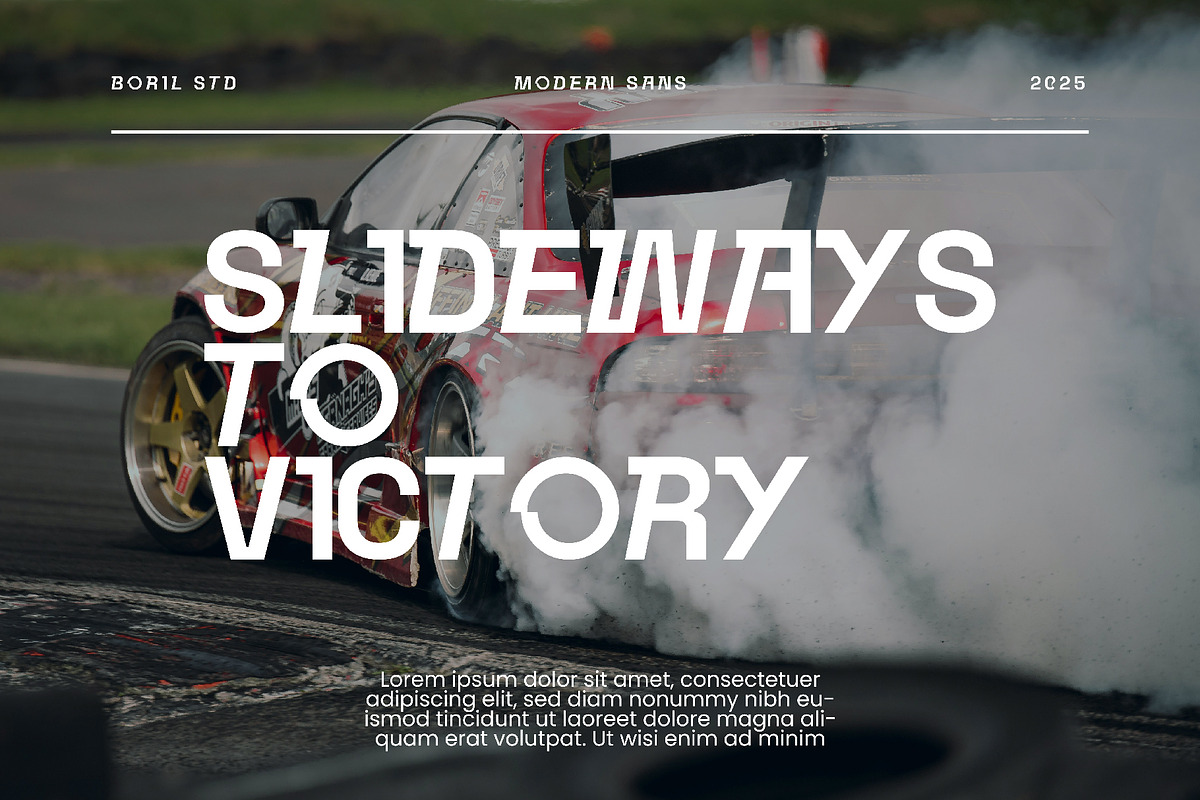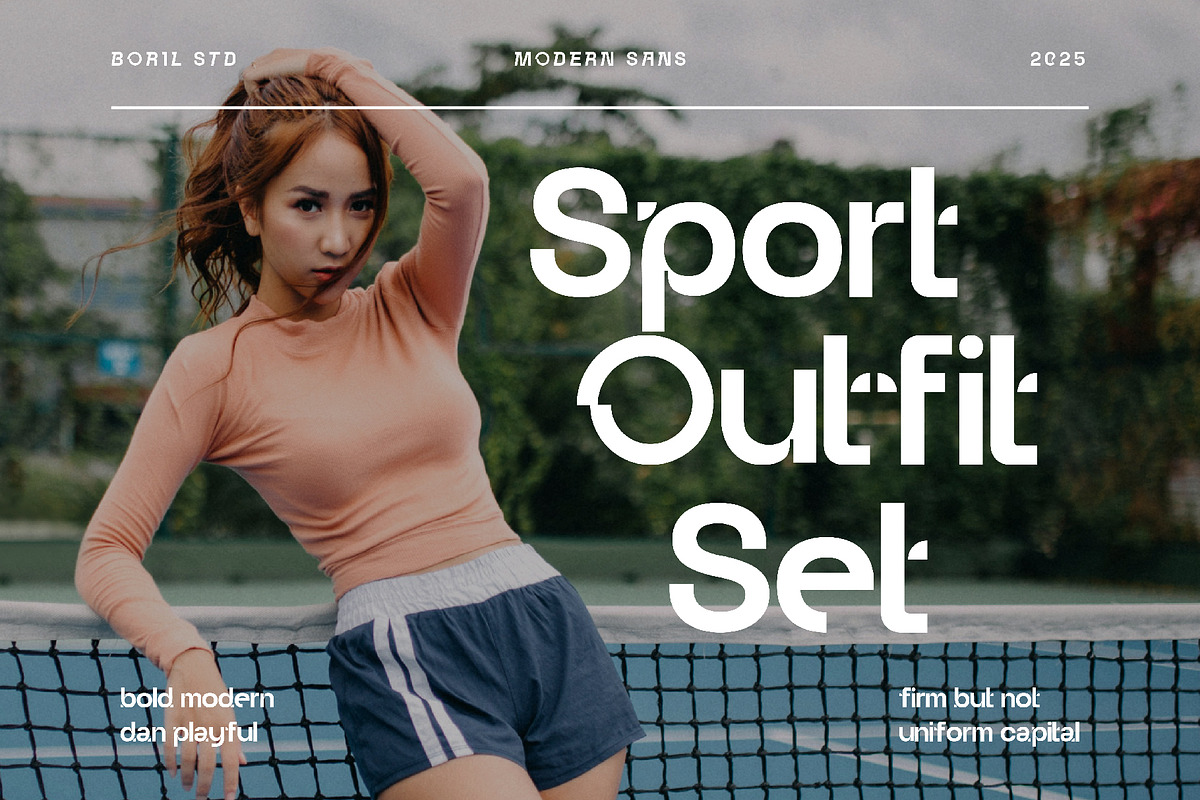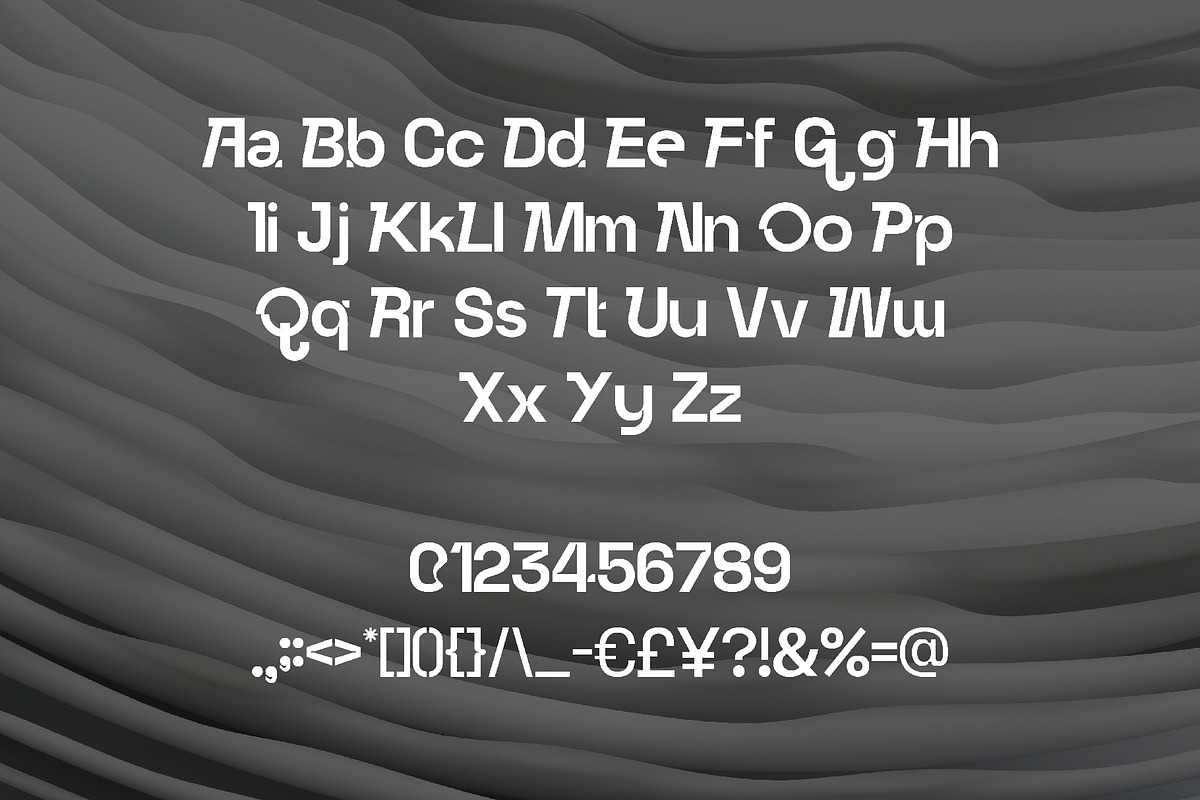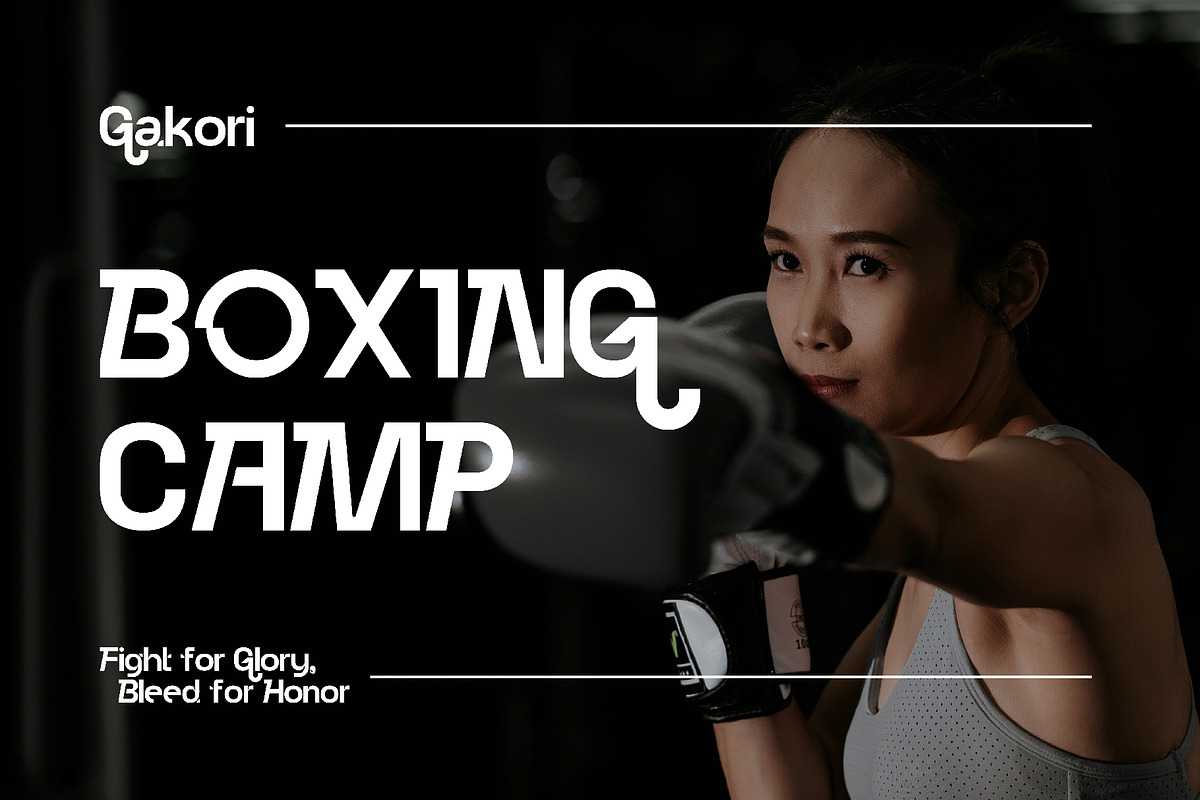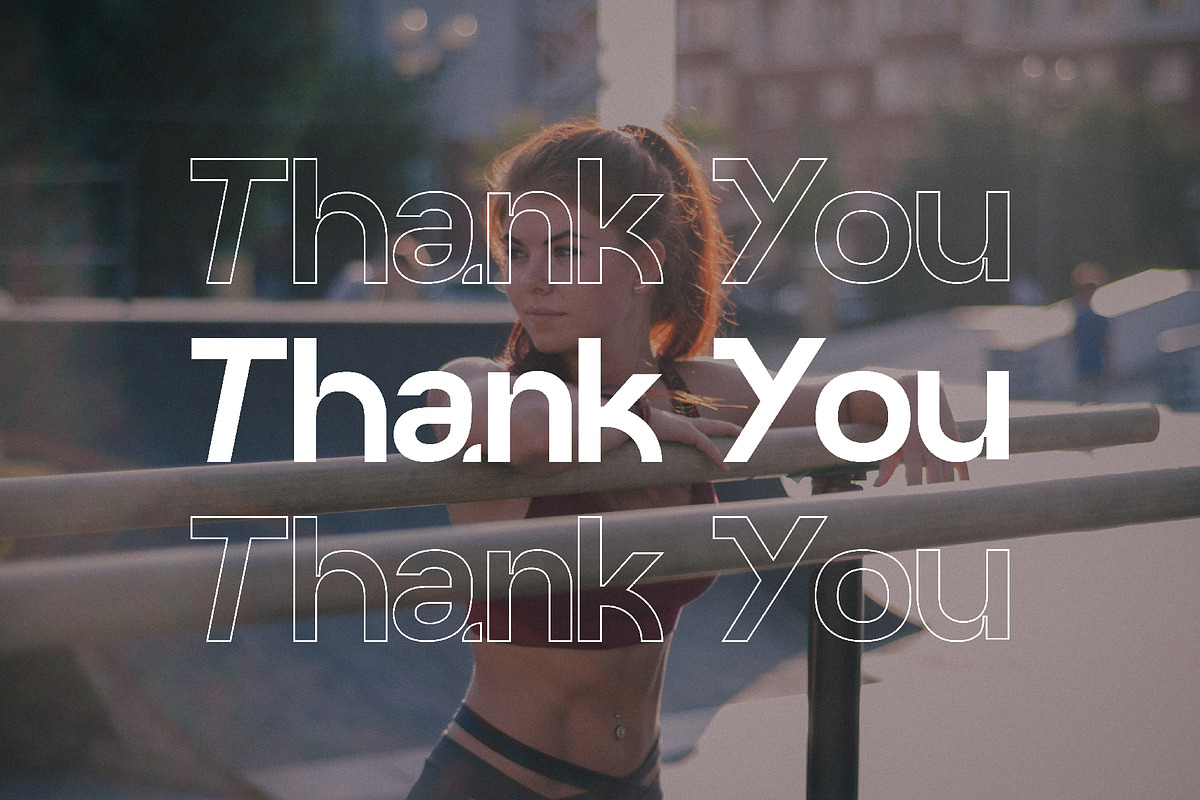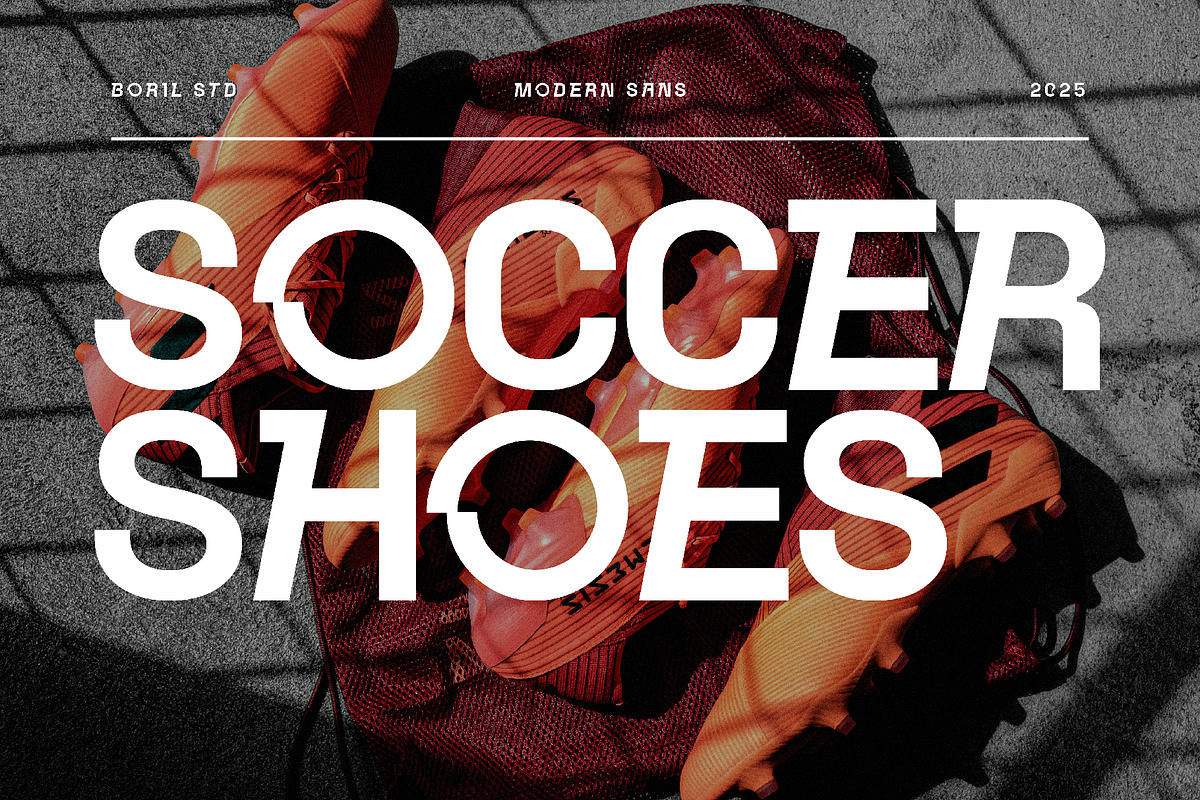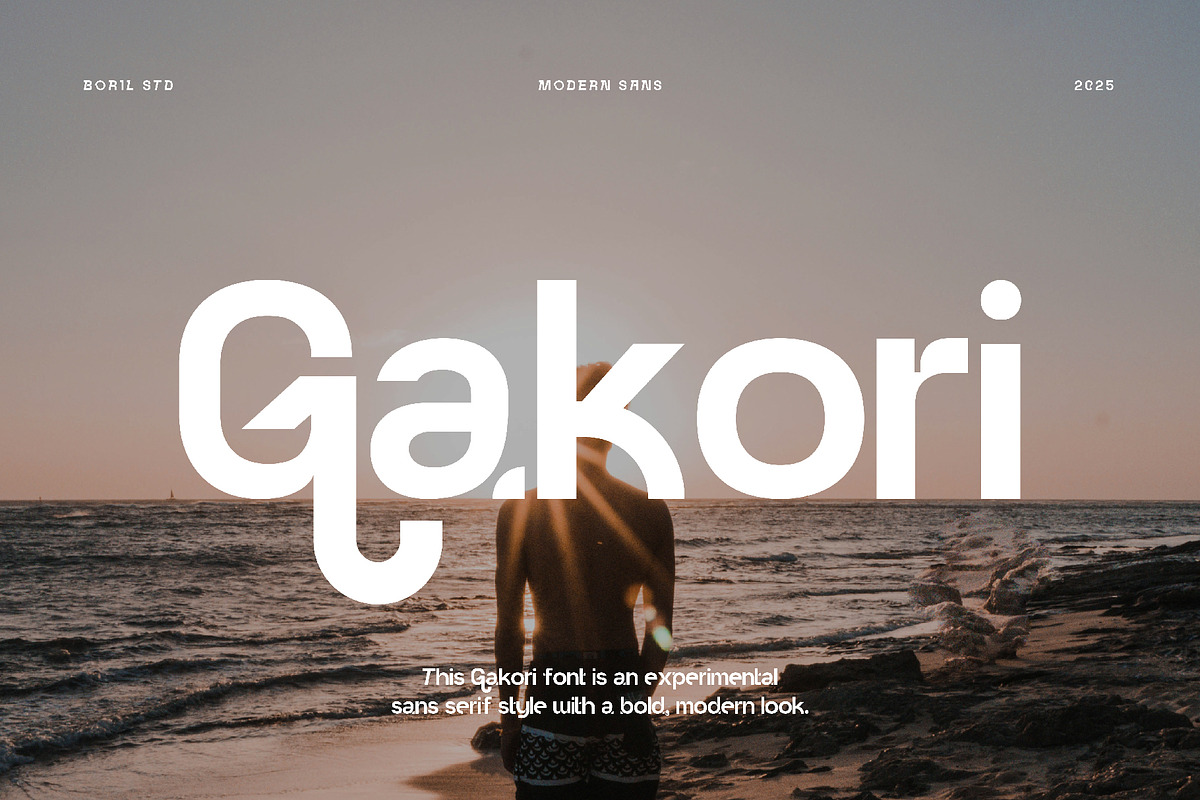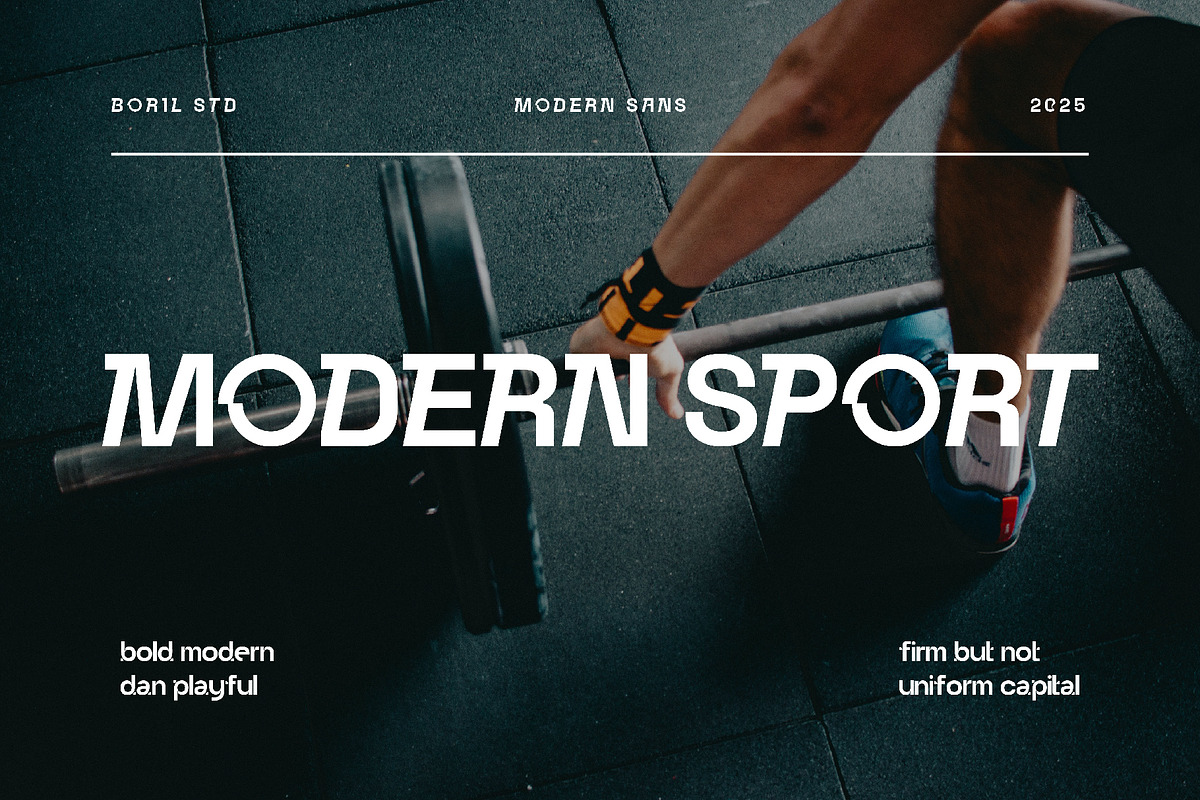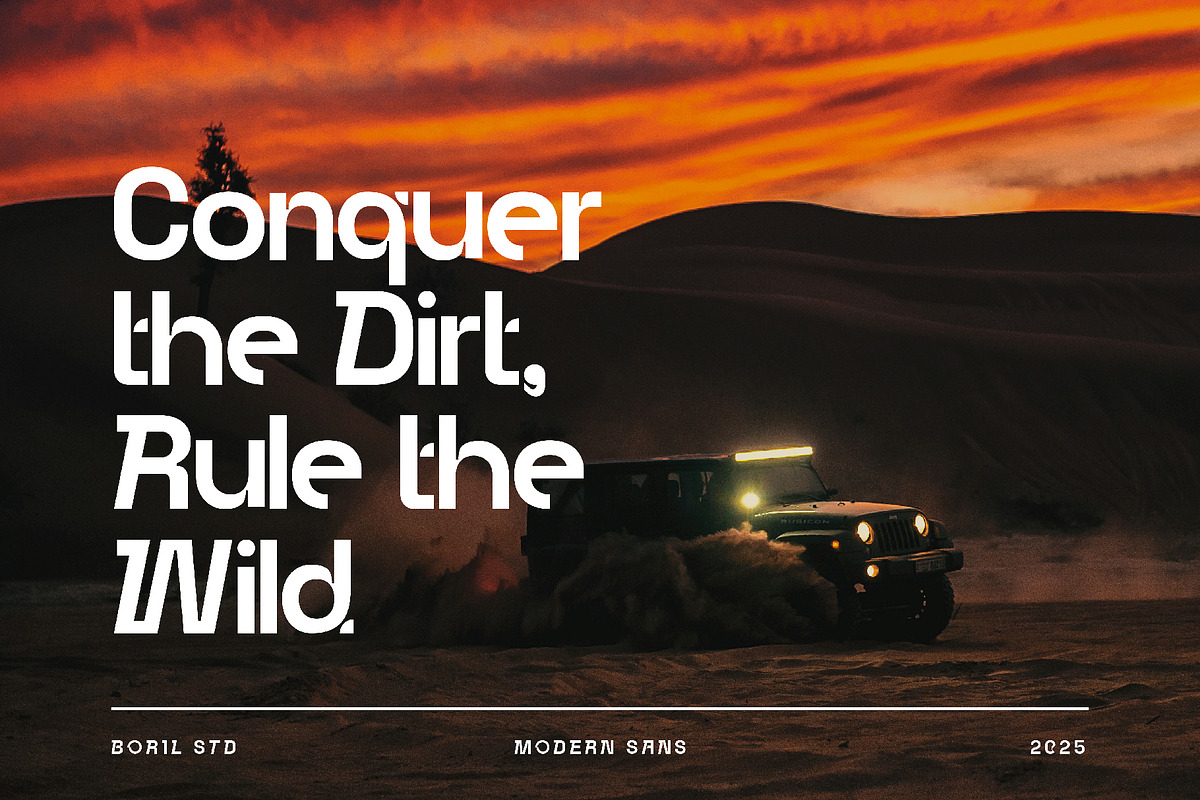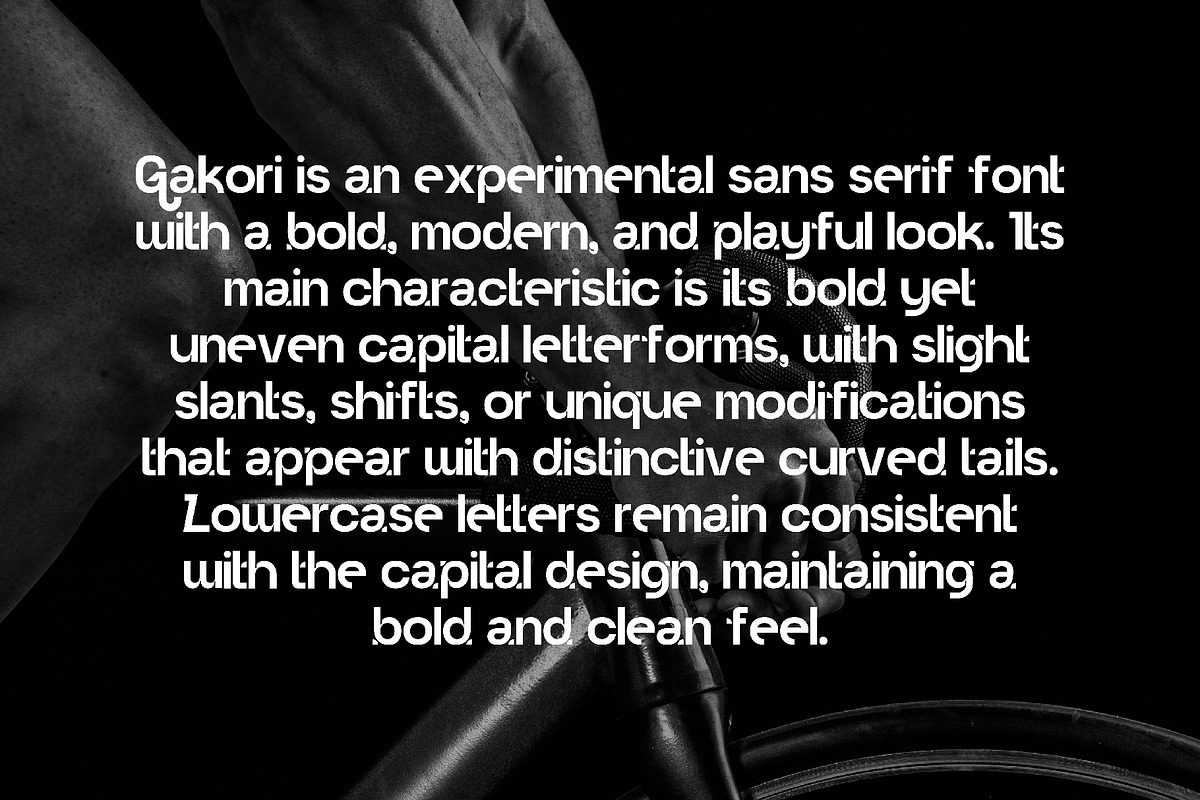
Gakori - Modern Sans
Gakori is an experimental sans serif font with a bold, modern, and playful look. Its main characteristic is its bold yet uneven capital letterforms, with slight slants, shifts, or unique modifications that appear with distinctive curved tails. Lowercase letters remain consistent with the capital design, maintaining a bold and clean feel.